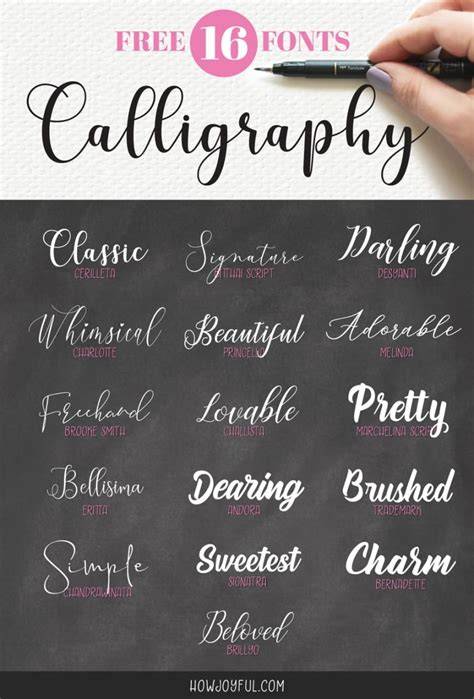
Free Calligraphy Fonts To Add Luxurious And Elegant Look To Your Projects
Calligraphy fonts are a great way to add a touch of elegance and style to any project. Whether you’re designing a website, a logo, or a brochure, calligraphy fonts can be used to give your work that extra bit of flair. The good news is that there is a vast selection of free calligraphy fonts available, so there’s sure to be one that’s perfect for your project.
What Are Calligraphy Fonts?
Calligraphy fonts are a type of font that are based on the art of handwriting. The term “calligraphy” comes from the Greek words “kallos”, meaning “beauty”, and “graphein”, meaning “to write”. Calligraphy fonts are characterized by their ornate and decorative scripts, which have been used for centuries to add a touch of elegance to art and literature.
Calligraphy fonts are perfect for adding a touch of luxury and sophistication to any design project. They can be used to create stunning logos, brochures, invitations, and more. They’re also great for adding a personal touch to any project, as they can be used to create custom lettering.
Tips for Using Calligraphy Fonts
When using calligraphy fonts, it’s important to keep a few things in mind. First, you should remember to keep your font size legible. If your font is too small, it won’t be readable. Also, it’s important to remember that calligraphy fonts are best used sparingly. Too much calligraphy in one design can be overwhelming, so it’s best to use it in moderation.
Finally, you should make sure to use a font that is appropriate for the style of your project. Different calligraphy fonts can give off different vibes, so it’s important to choose one that fits with your project’s overall look and feel. With the wide selection of free calligraphy fonts available, you’re sure to find one that’s perfect for you.